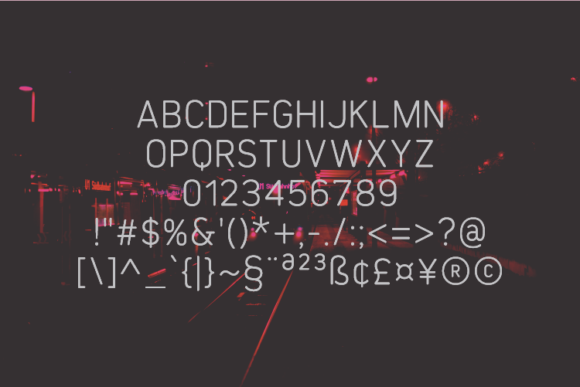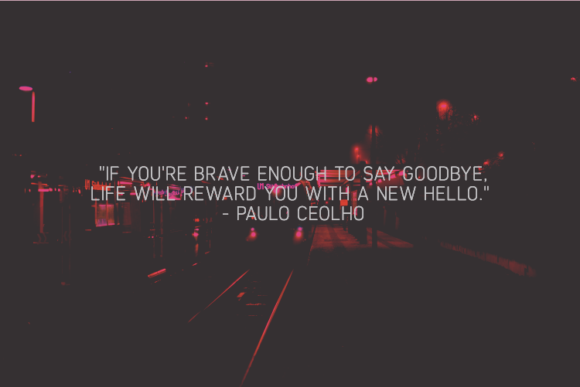
Unlocking Creativity with the Elegantio Font
Do you remember the moment when a single font choice made all the difference in your design? Maybe it was a bold, adventurous script that added a touch of whimsy to your latest project, or a sleek, modern sans-serif that elevated your brand to new heights. For designers, those ‘aha’ moments are what keep us going, and today we’re excited to share one such discovery – the Elegantio Font.
This cool lettered and simple sans-serif font is a game-changer for creating modern, distinct designs. Whether you’re crafting headings, designing gorgeous invitations, or creating stunning logos, Elegantio Font is the perfect companion for bringing your vision to life. Its versatility and effortless style make it an invaluable asset for designers looking to add a touch of sophistication to their work.
Elegantio Font Key Features
- Font Family: Elegantio Font comes in 6 font styles: Elegantio Regular, Elegantio Italic, Elegantio Bold, Elegantio Bold Italic, Elegantio Light, and Elegantio Light Italic.
- Unique Characteristic: Elegantio Font features a unique blend of elegance and sophistication, making it perfect for high-end designs, luxury brands, and premium products.
Elegantio Font Review
I’ve had the chance to work with the Elegantio font for a few projects now, and overall, I’m quite impressed. Here are some of the things that stand out to me:
- ✨ Elegantio has a unique and sophisticated aesthetic that’s perfect for high-end branding or luxury product designs. It’s clean, elegant, and visually appealing.
- ✨ The font’s versatility shines through in its various weight options, making it suitable for a wide range of applications, from headings to body text.
- ✨ The font’s legibility is top-notch, even at smaller sizes, which is a must for any font I work with.
However, there are a few limitations that I’ve encountered:
- ⚠️ Elegantio can feel a bit sterile and lacks the emotional depth that some other fonts possess. This might make it less suitable for projects that require a more personal or creative touch.
- ⚠️ The font’s x-height can be a bit inconsistent across different weights, which may cause some issues with text alignment and spacing.
Overall, I’d say Elegantio is a solid choice for projects that require a sleek and sophisticated look. While it may not be the best fit for every project, it’s definitely worth considering for those that need a high-end, elegant aesthetic.
Tips for Getting the Most Out of Elegantio Font
For optimal results, use Elegantio Font in conjunction with a clear and simple design. Avoid using it in bold or italic styles, as this can make the font difficult to read.
Common use cases for Elegantio Font include:
1. Business cards and letterheads
2. Brochures and flyers
3. Website headers and footers
Alternatives to Elegantio Font for Designers
Montserrat is a sans-serif font that originated in Argentina. It is a great alternative for designers who want a modern and sleek look. Montserrat is best used for titles, headings, and body text where a clean and minimalistic design is required.
Comparison: Montserrat is more geometric and modern compared to Elegantio Font, which has a more classic and elegant feel. While Elegantio Font is more versatile, Montserrat is better suited for contemporary and urban designs.